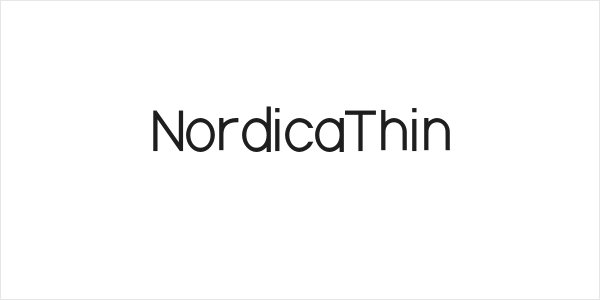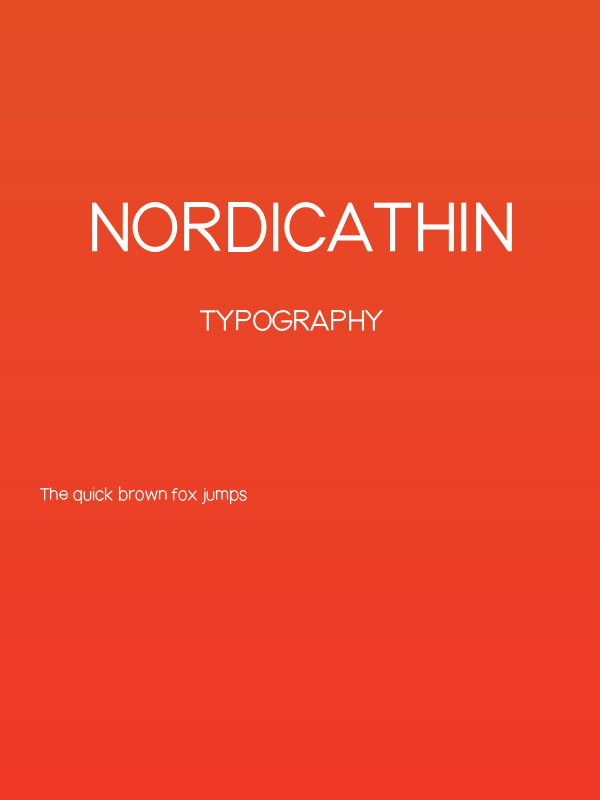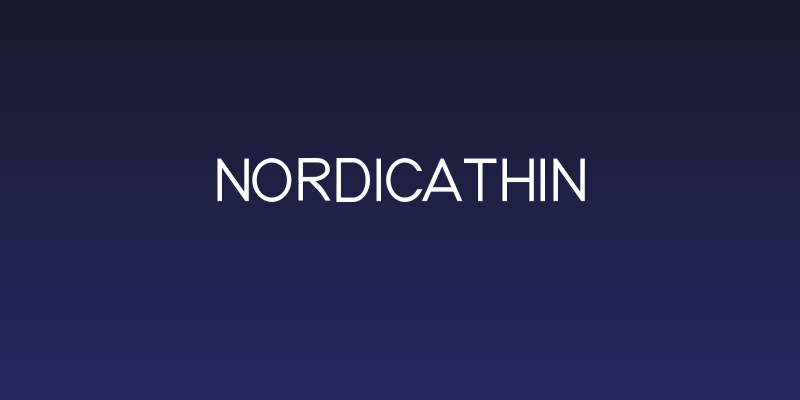
NordicaThin Font
NordicaThin Description
This font features a clean and modern sans-serif design with a geometric structure. The characters are evenly spaced with a consistent stroke width, giving it a balanced and harmonious appearance. The uppercase and lowercase letters are well-proportioned, making it highly legible. The numerals and special characters maintain the same geometric style, ensuring uniformity across all glyphs. Its simplicity and clarity make it versatile for various design applications.
| Proposed Projects | Ideal for branding, web design, corporate materials, and editorial layouts due to its clarity and modern aesthetic. |